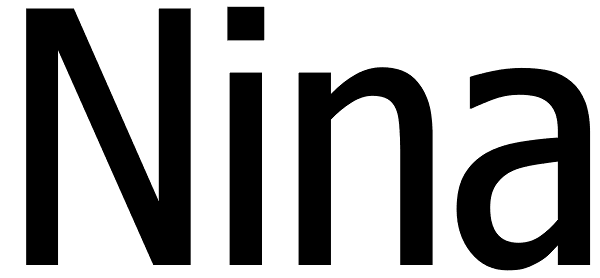
Nina
Nina is a new condensed sans serif typeface designed to be as readable as possible at small sizes, whilst squeezing in as many characters per inch as feasibly possible. This typeface was designed for Microsoft by world renowned type designer Matthew...